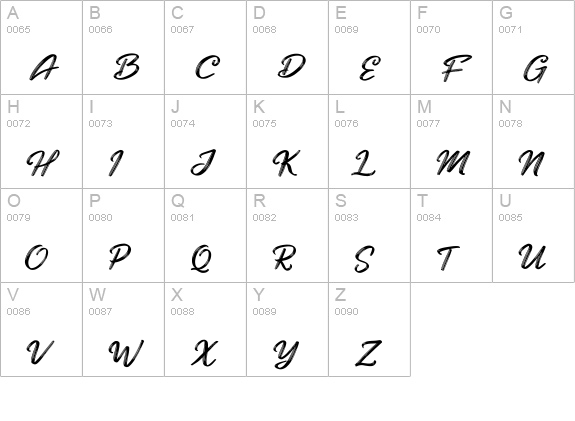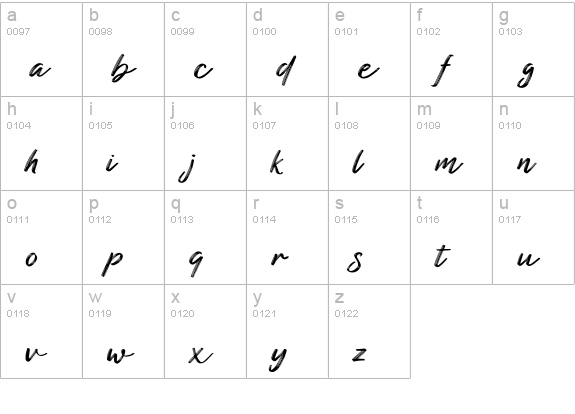
Blackened Font Details
Blackened is a demo font in the Script > Brush category, designed by patria_typestudio. It has been downloaded 210 times and is available for Windows, Mac and Linux.
The Blackened font is a striking display typeface that exudes a sense of boldness and sophistication. Its sleek and edgy design makes it perfect for creating eye-catching headlines, posters, and branding materials. The unique blackened effect adds a touch of mystery and drama to any project.